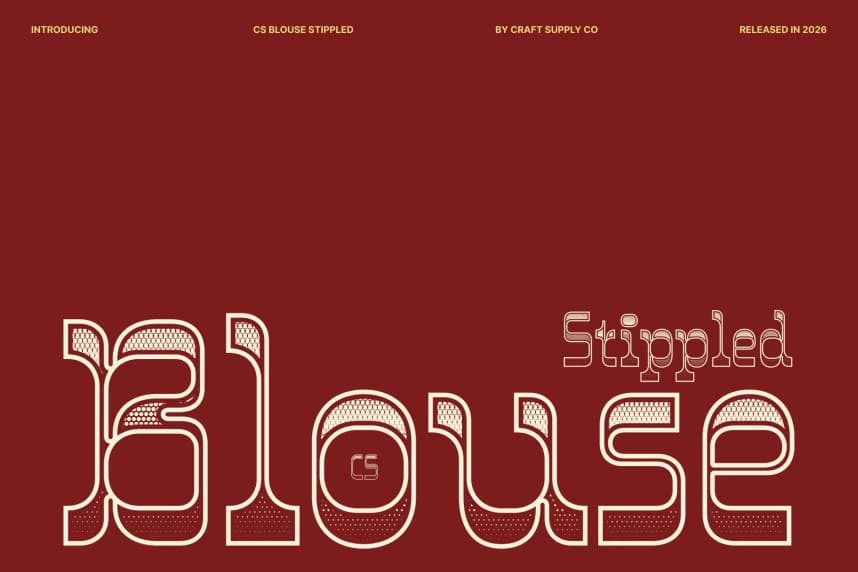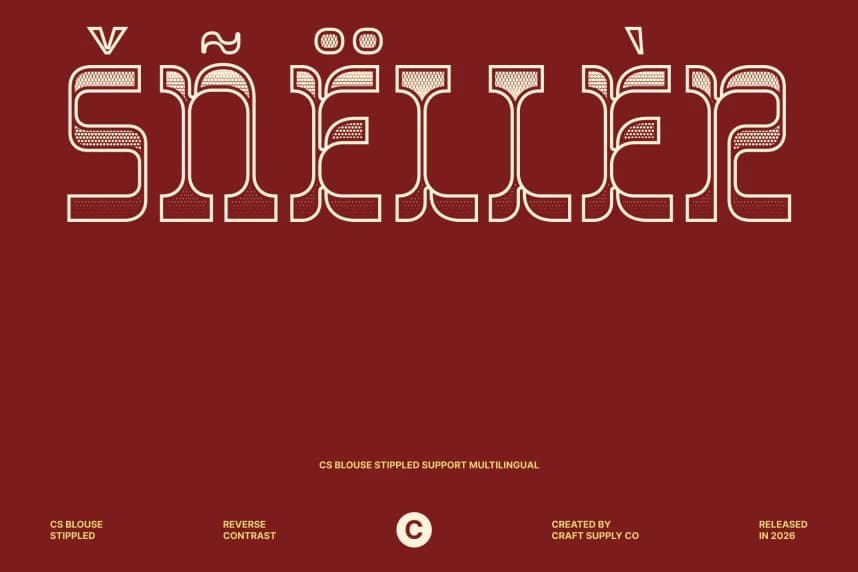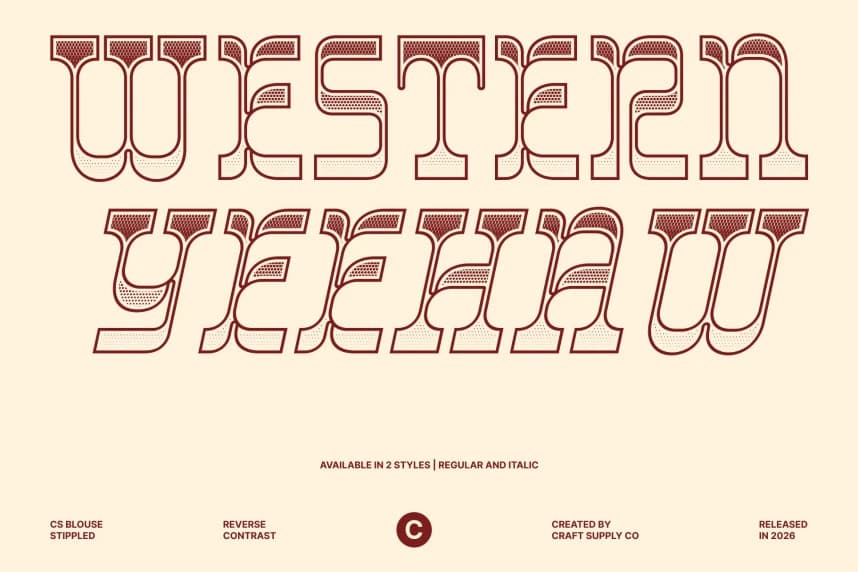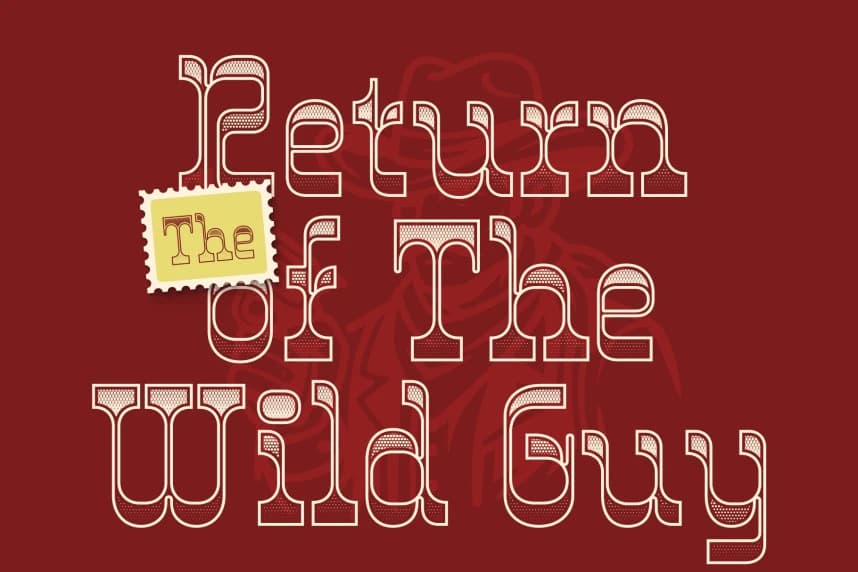
CS Blouse Stippled Font
CS Blouse Stippled Font – Bold Reverse Contrast Serif with Textured Vintage Charm Unconventional Elegance with Reverse Contrast. This is a display serif font that embraces the distinctive reverse contrast style